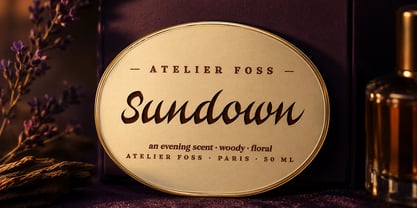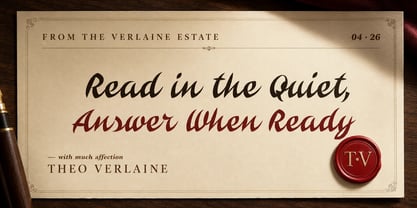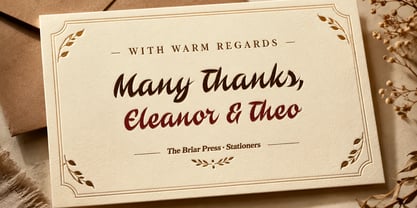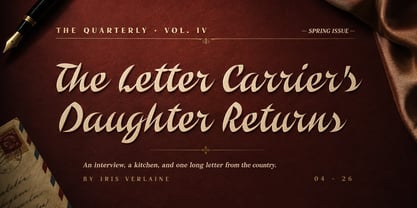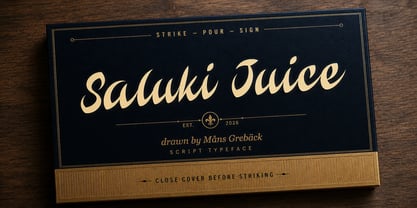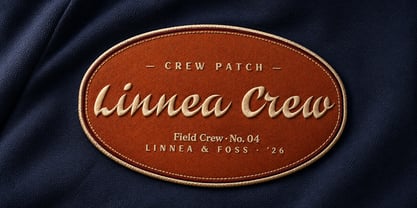
Saluki Juice
by Mans Greback
Saluki Juice is a brush-drawn signature script with a quick, confident hand.
The letters lean forward and run together where they want to, breaking apart where the brush lifts. Strokes are sharp at the entry and tapered at the exit, with the contrast you get from a flat brush turning under pressure. Caps stand a little taller than the lowercase and curve into the next letter without much fuss.
It reads best at the size where you'd write it yourself: across the front of a market stall, on the side of a bottle label drawn in a single sitting, on a flyer that doesn't want to look printed.
The font is built with advanced functionality and guaranteed top-notch quality, containing stylistic and contextual alternates, ligatures and more automatic and manual features; all to give you full control and customizability.
It has extensive lingual support, covering all Latin-based languages, from North Europa to South Africa, from America to South-East Asia. It contains all characters and symbols you'll ever need, including all punctuation and numbers.